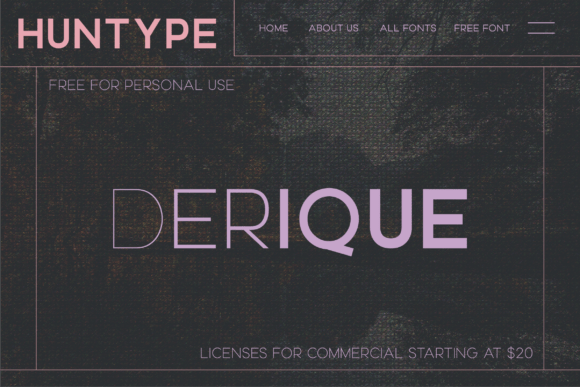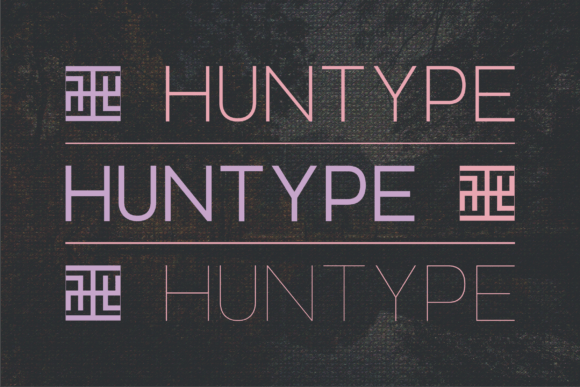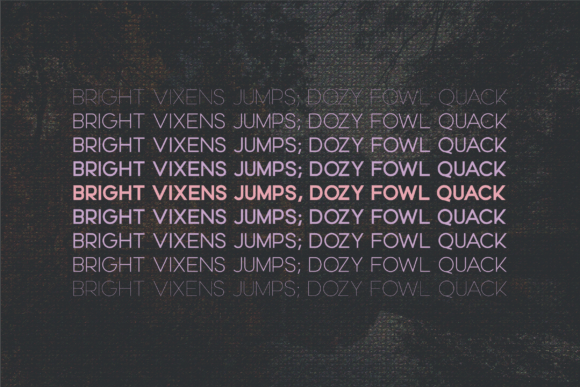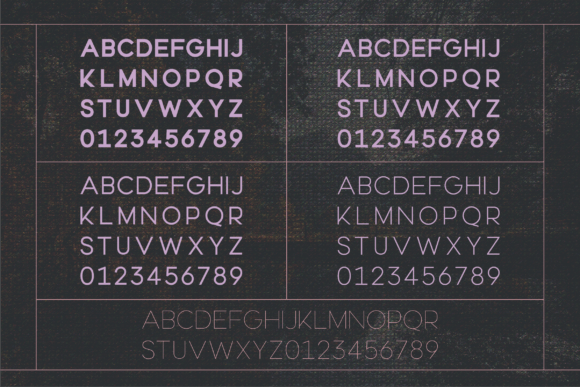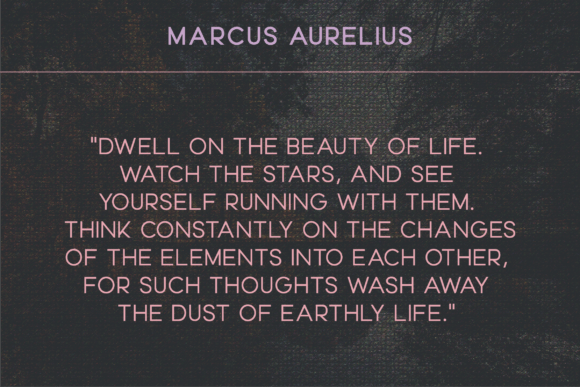
Discover the Elegance of Derique Font: A Modern Sans Serif Marvel
I’ll never forget the design project that led me to Derique Font. I was working on a sleek, modern branding campaign for a luxury client, and I was struggling to find the perfect font. The client wanted something elegant, yet bold; sophisticated, yet approachable. After hours of scouring font libraries, I stumbled upon Derique, and it was love at first sight ✨. With its clean lines, versatile weights, and effortless charm, it was the perfect fit for the project. In this article, I’ll share my experience with Derique Font, its features, and how to make the most of it in your designs.
A Personal Review of Derique Font
- ✨ Effortless elegance: Derique’s sans serif design exudes sophistication and modernity, making it perfect for high-end branding projects.
- ✅ Versatile weights: With five distinct weights (THIN, LIGHT, REGULAR, BOLD, and BLACK), Derique offers a wide range of creative possibilities.
- 💡 Seamless blend of style and functionality: Derique’s design ensures that your projects will shine with distinction, whether you’re aiming for a subtle touch or a bold statement.
While Derique Font is an exceptional choice, there are a few minor considerations to keep in mind ⚠️:
- 🤔 Limited language support: As with many modern fonts, Derique’s language support might be limited to basic Latin characters and a few additional languages.
- ⚠️ Glyph coverage: While Derique offers a range of glyphs, it might not cover every possible character or symbol you need.
- Make the most of Derique’s OpenType features, such as ligatures and stylistic alternates, to add visual interest to your text.
- Explore Derique’s glyphs and OpenType features, such as swashes and stylistic sets, to add depth and personality to your text.
- Take advantage of Derique’s clear and readable design, perfect for body text and headings.
The Story Behind Derique Font
The story of Derique Font begins with a passion for modern design and typography. The creator, inspired by the works of renowned typographers, aimed to craft a font family that embodies elegance, versatility, and sophistication. Through meticulous attention to detail and a deep understanding of typographic principles, Derique Font was born – a testament to the power of typography in elevating design.
| Font Name | Derique Font |
| Author | Huntype |
Q: What makes Derique Font unique?
A: Derique Font’s unique blend of elegance, modernity, and versatility, combined with its five distinct weights, sets it apart from other font families.
Q: Does Derique Font support OpenType features?
A: Yes, Derique Font offers a range of OpenType features, including ligatures, stylistic alternates, and glyphs, allowing for creative and flexible typography.
Q: Is Derique Font suitable for body text?
A: While Derique Font is elegant and modern, its lighter weights (THIN and LIGHT) might be better suited for headings. However, the REGULAR and BOLD weights can work well for body text, especially in digital formats.